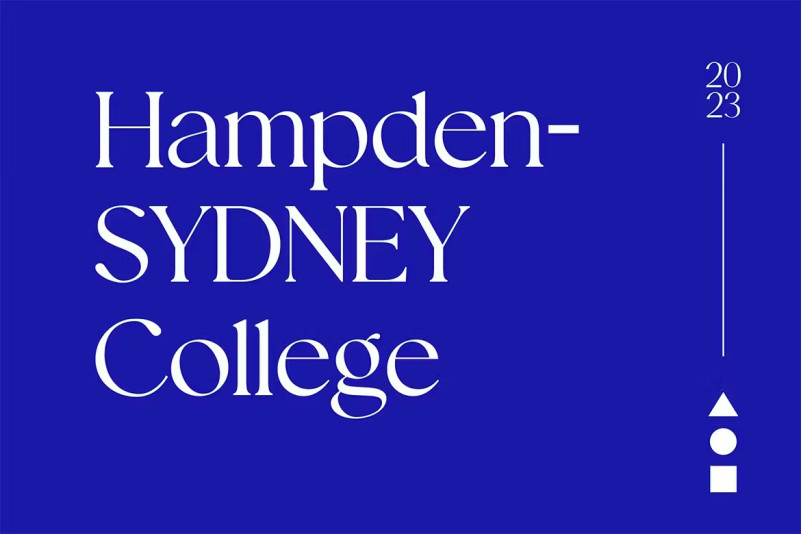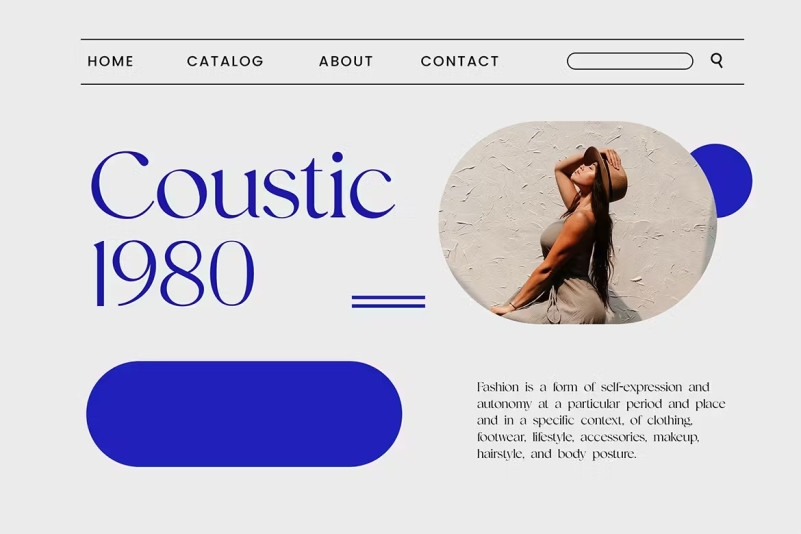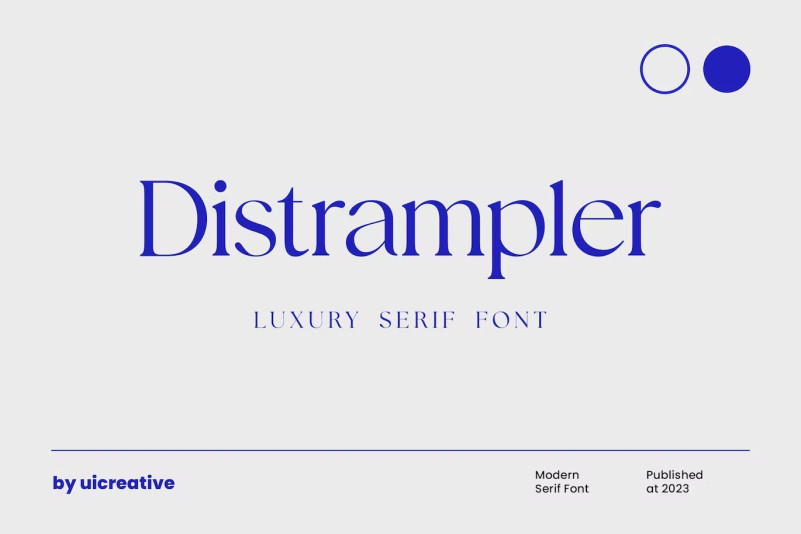
Distrampler Font
Distrampler Font – A modern Serif font that gives an impression of beauty, class, elegance and modernity. This font is perfect for a wide variety of projects, such as signature, stationery, logo, weddings, typographic quotes, magazine or book covers, website headers, apparel, branding, packaging design, etc. Additionally, fashion-related branding or editorial design exhibits both masculine and feminine qualities.